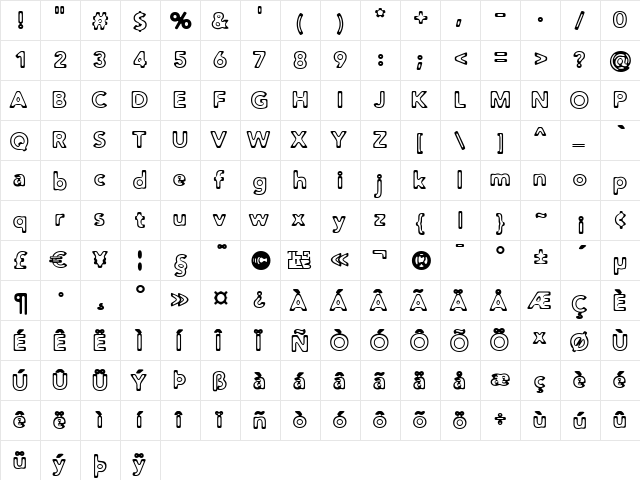
Distro Toast Regular
| Designer | Peter Ramsey & Apostrophe |
Design Context for Distro Toast Typeface
Distro Toast is a composed and adaptable typeface that performs quietly and consistently across a wide range of design contexts.